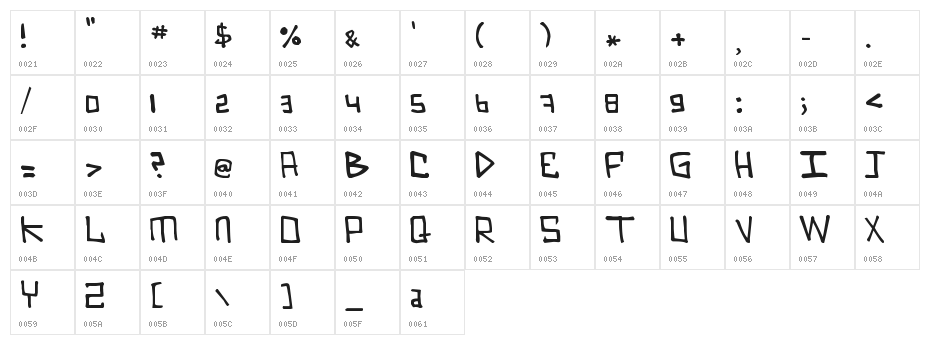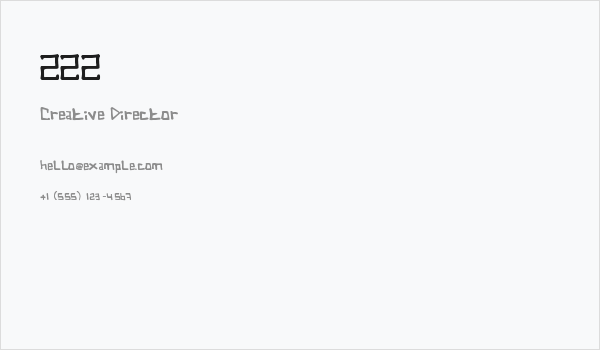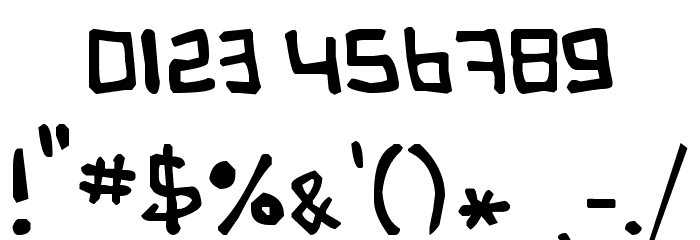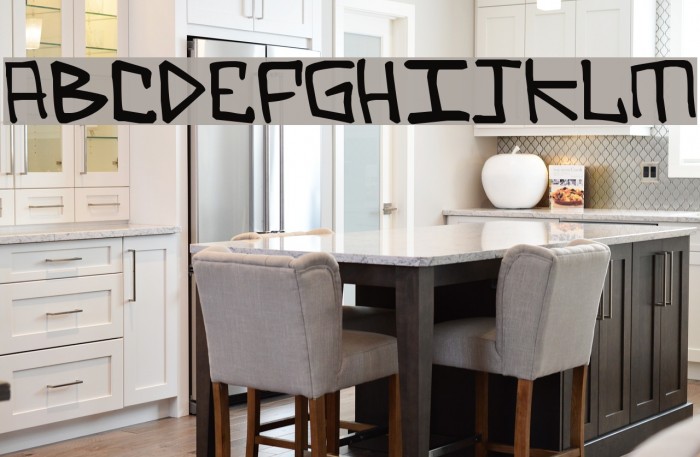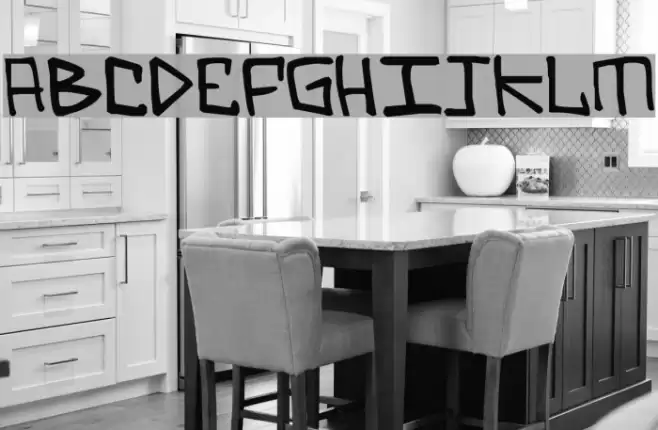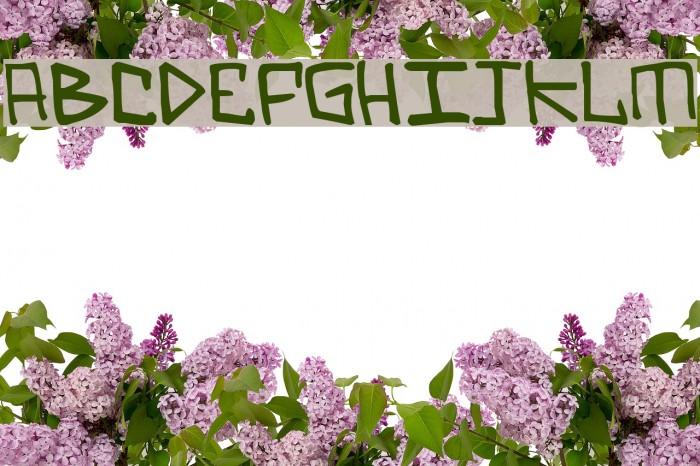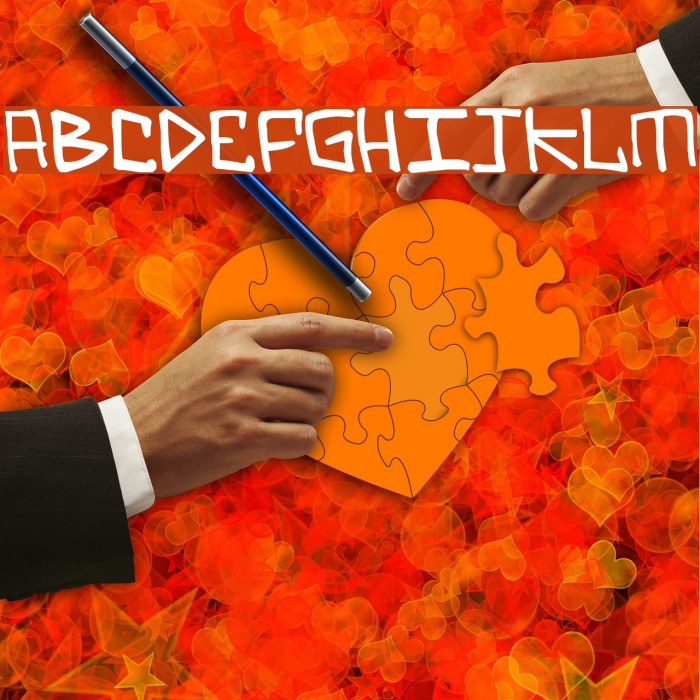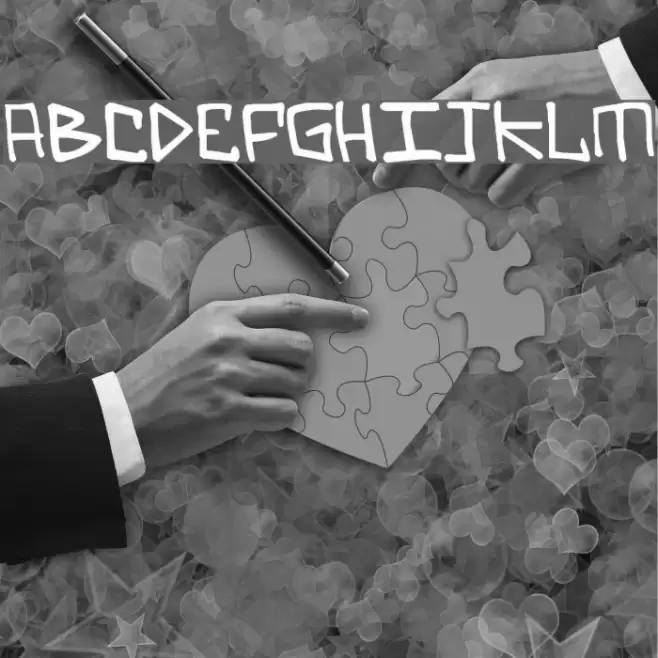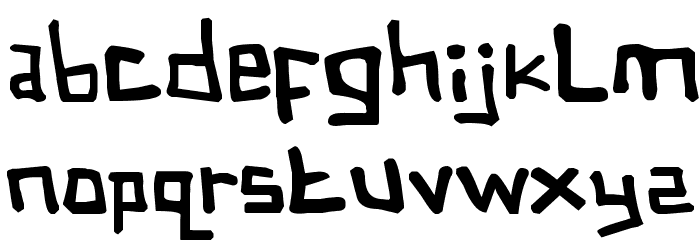
ZZZ Font
ZZZ Description
This font features a playful and quirky design, characterized by its uneven and irregular strokes that give it a hand-drawn appearance. The uppercase letters exhibit a bold and slightly distorted look, while the lowercase letters maintain a consistent style with rounded edges and varying stroke widths. The numerals and special characters follow the same whimsical theme, adding a unique touch to the overall aesthetic. The font's informal and casual vibe makes it suitable for creative and fun projects, where a relaxed and approachable feel is desired.
| Proposed Projects | Ideal for children's books, comic strips, playful branding, and casual invitations. |